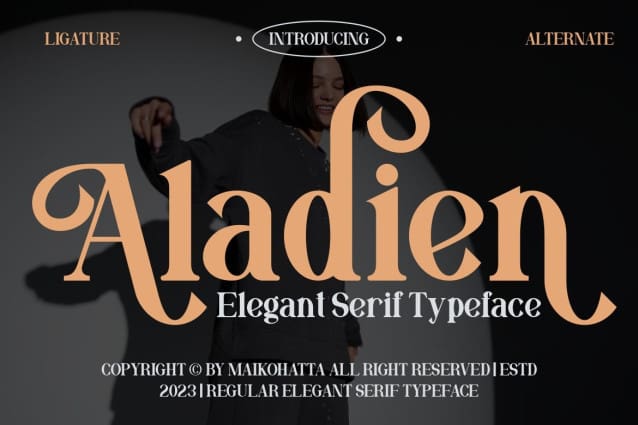
Aladien Font
Aladien Font – Elegant Serif Typeface. This font is a typographic masterpiece that harmonizes elegance and sharpness. Every letter within this font is meticulously designed, with a keen focus on balanced proportions and impeccable alignment. This font is well-suited for a variety of contexts, such as print design, promotional materials, or magazine layouts.